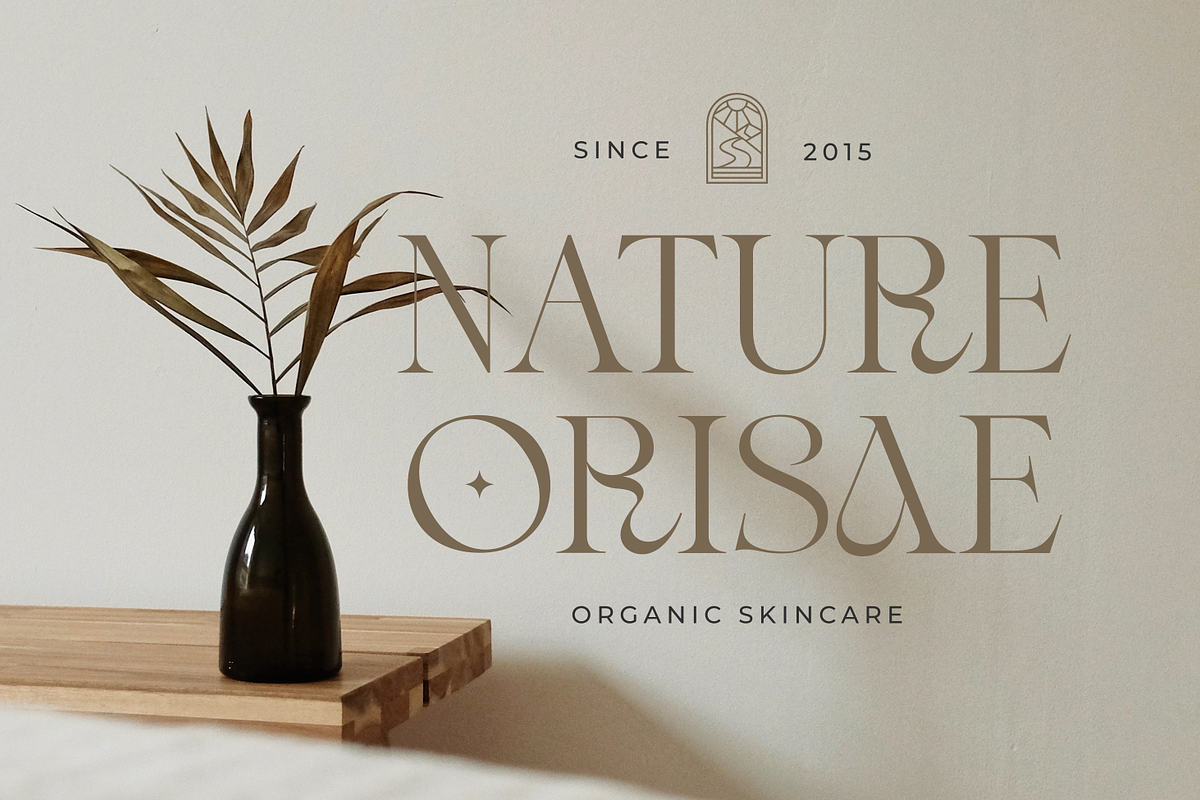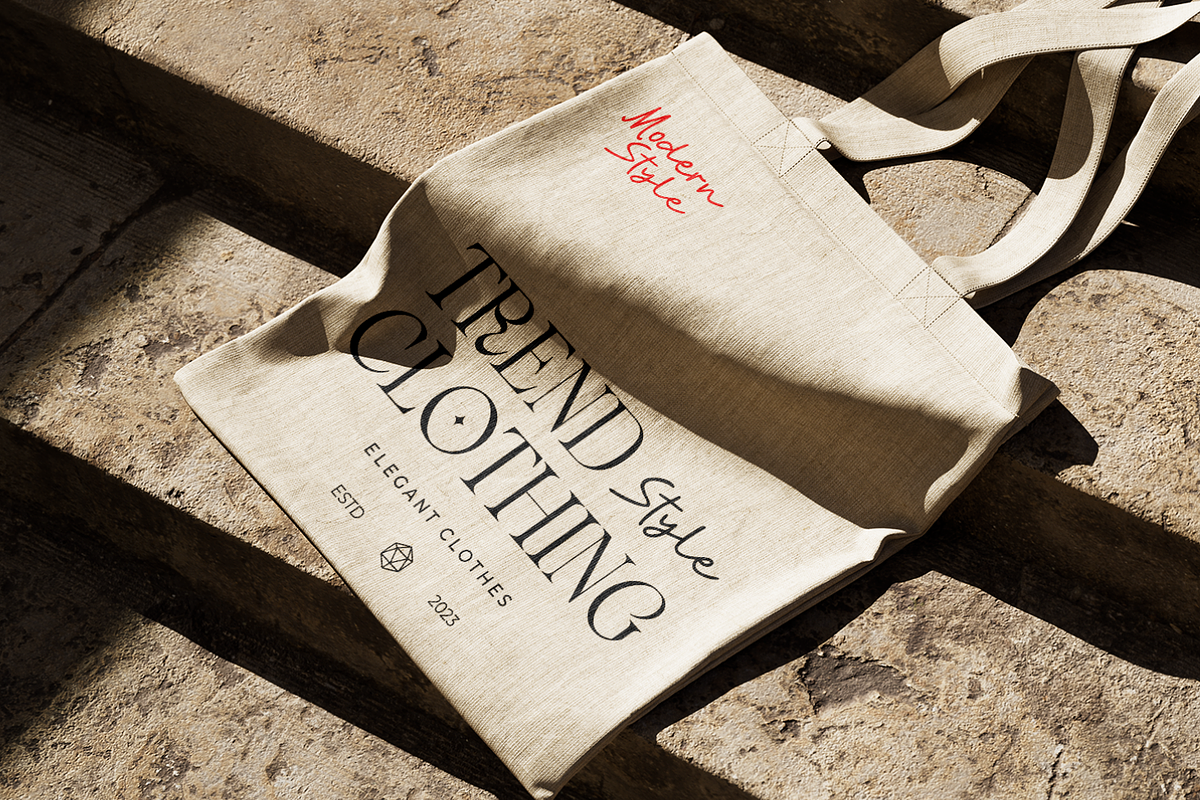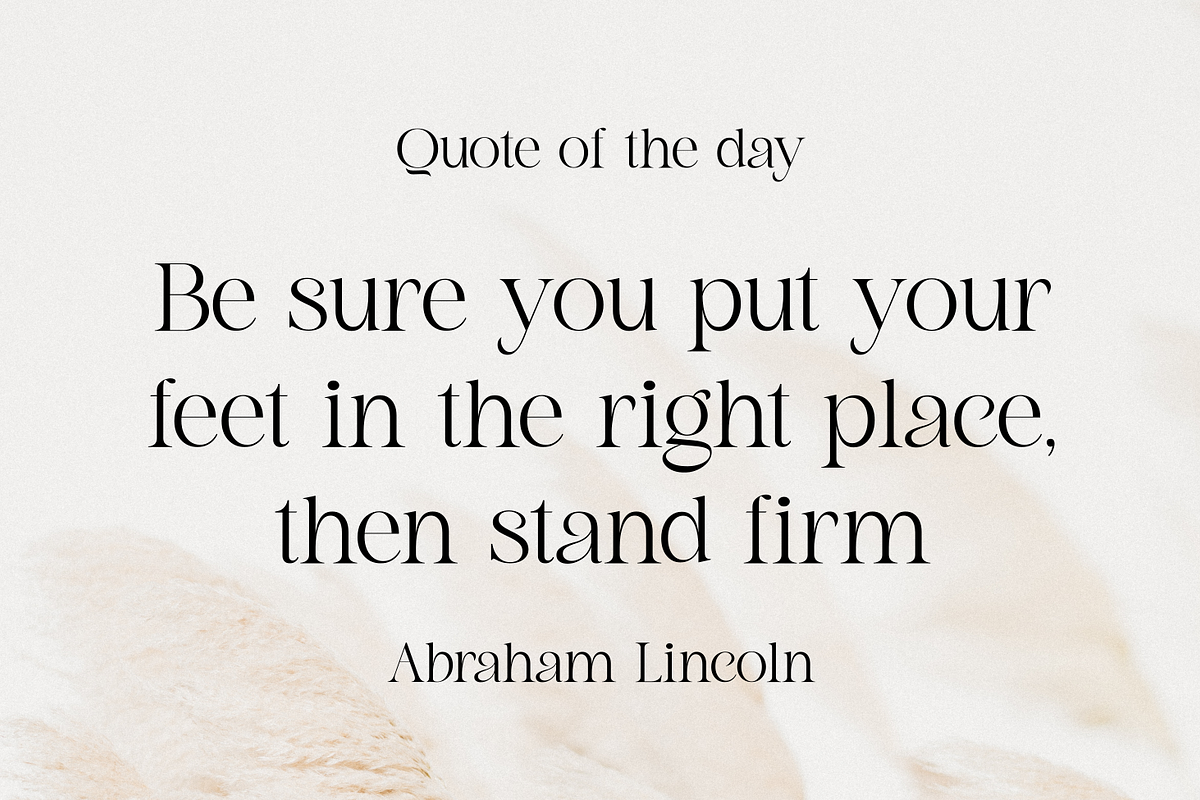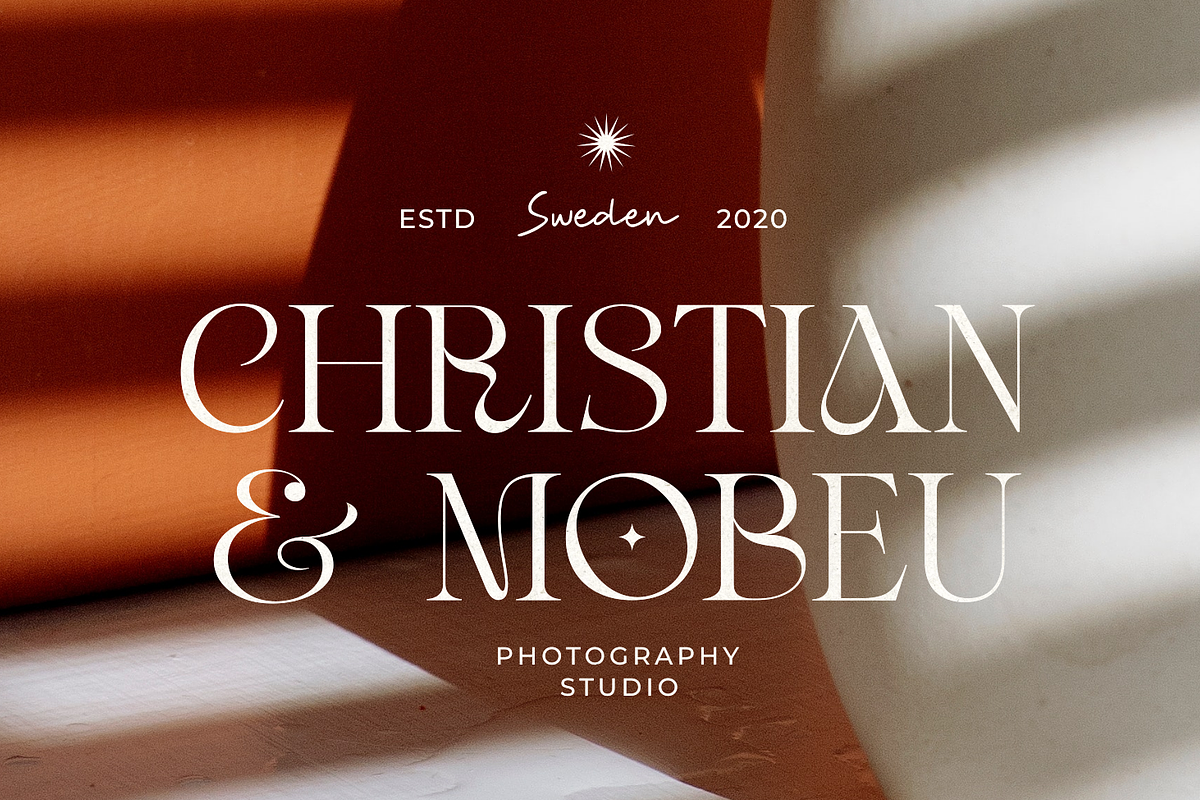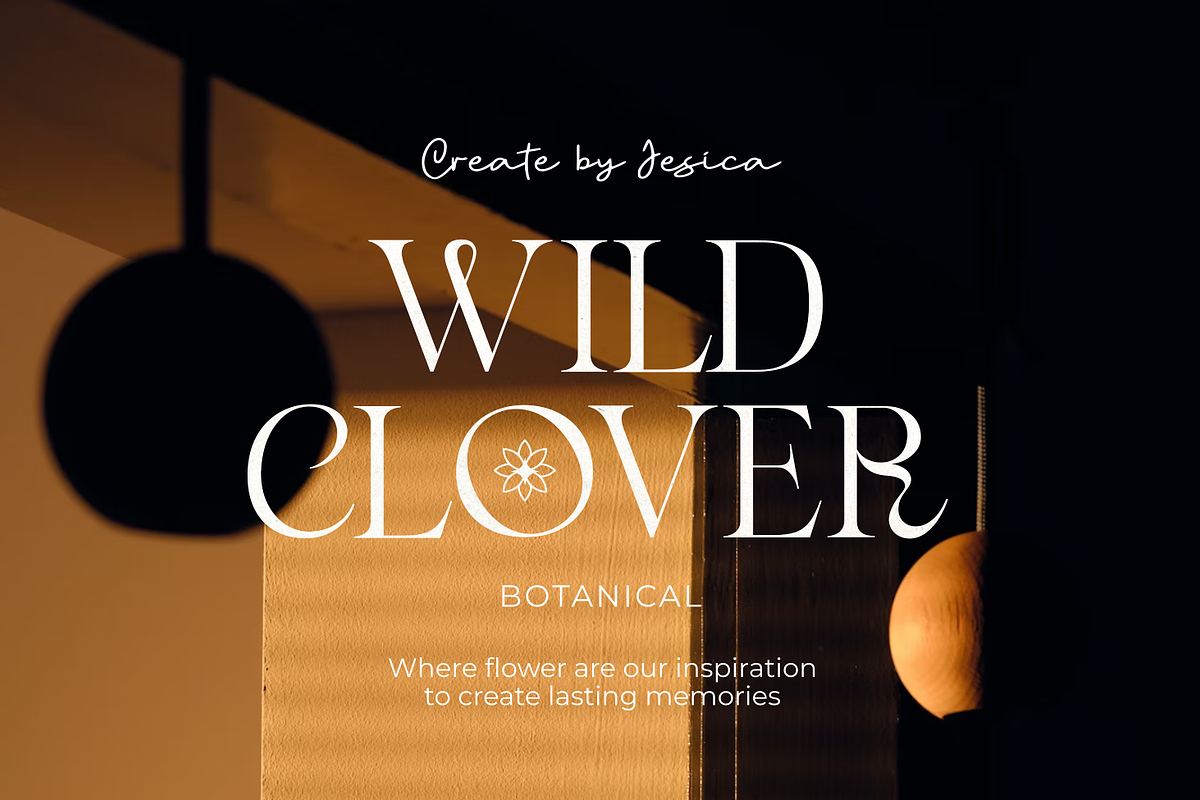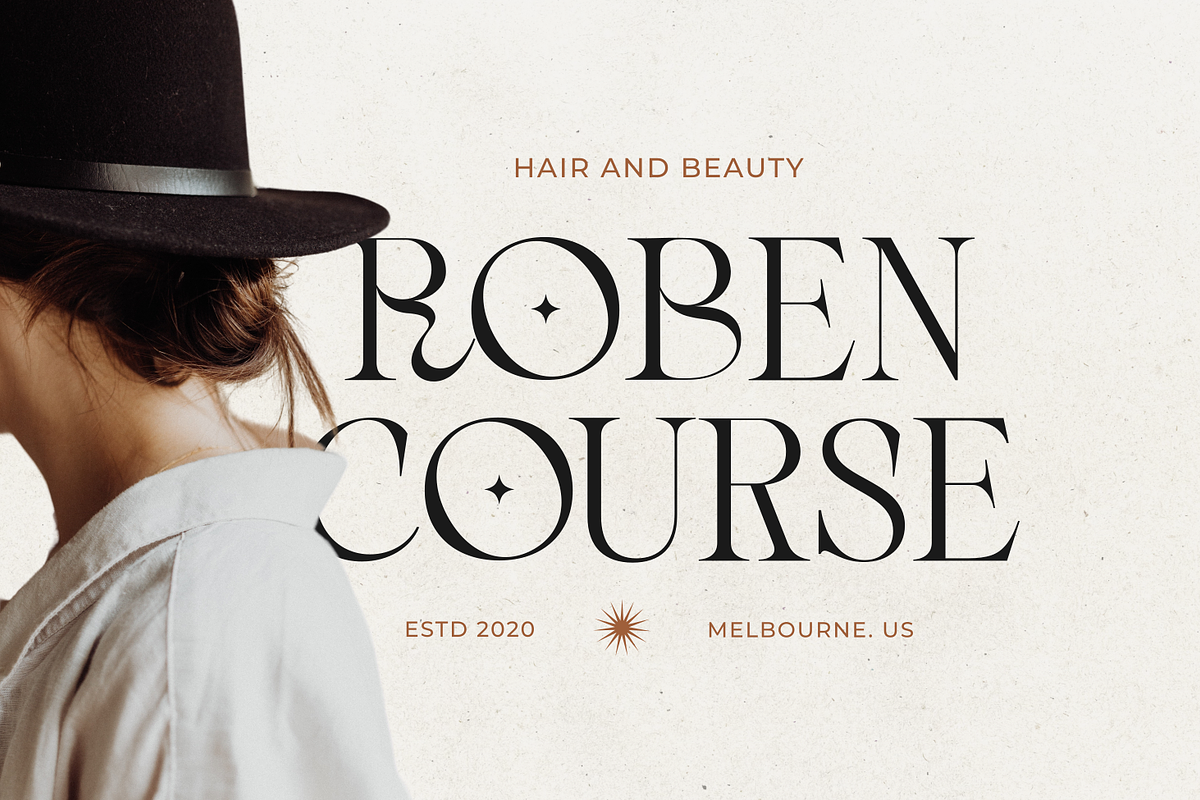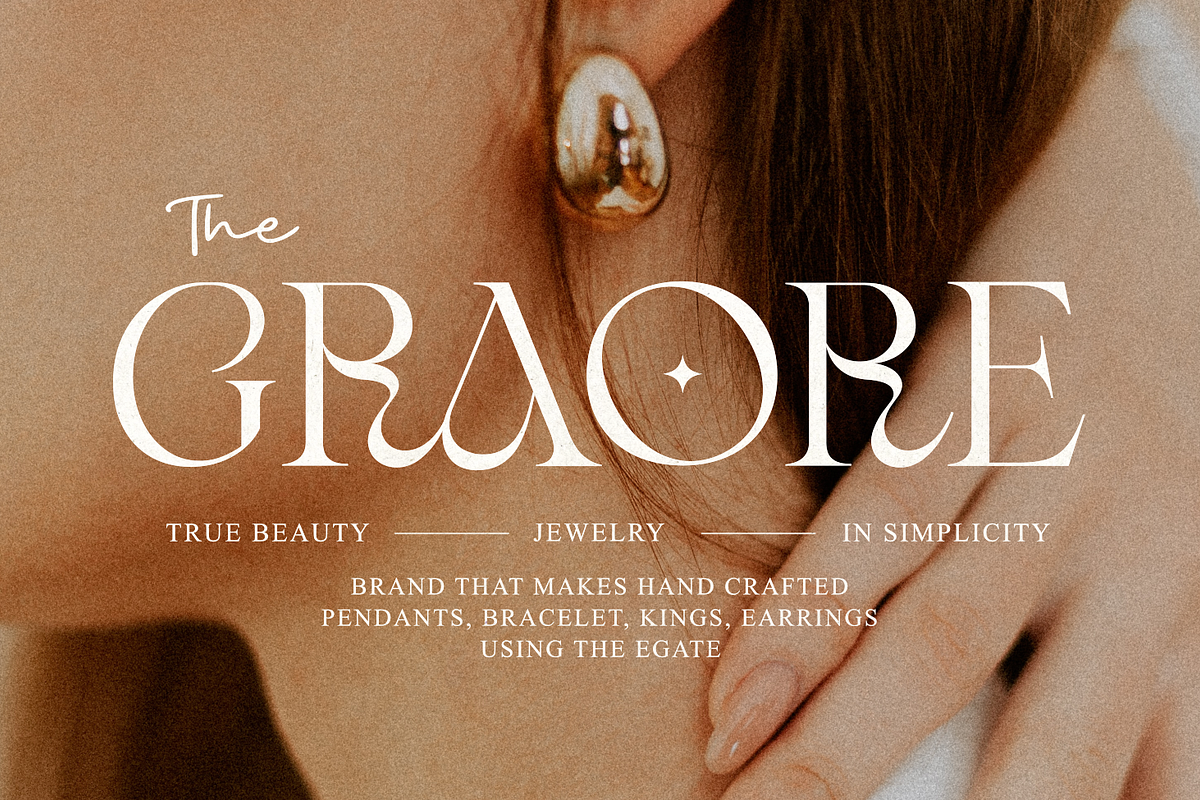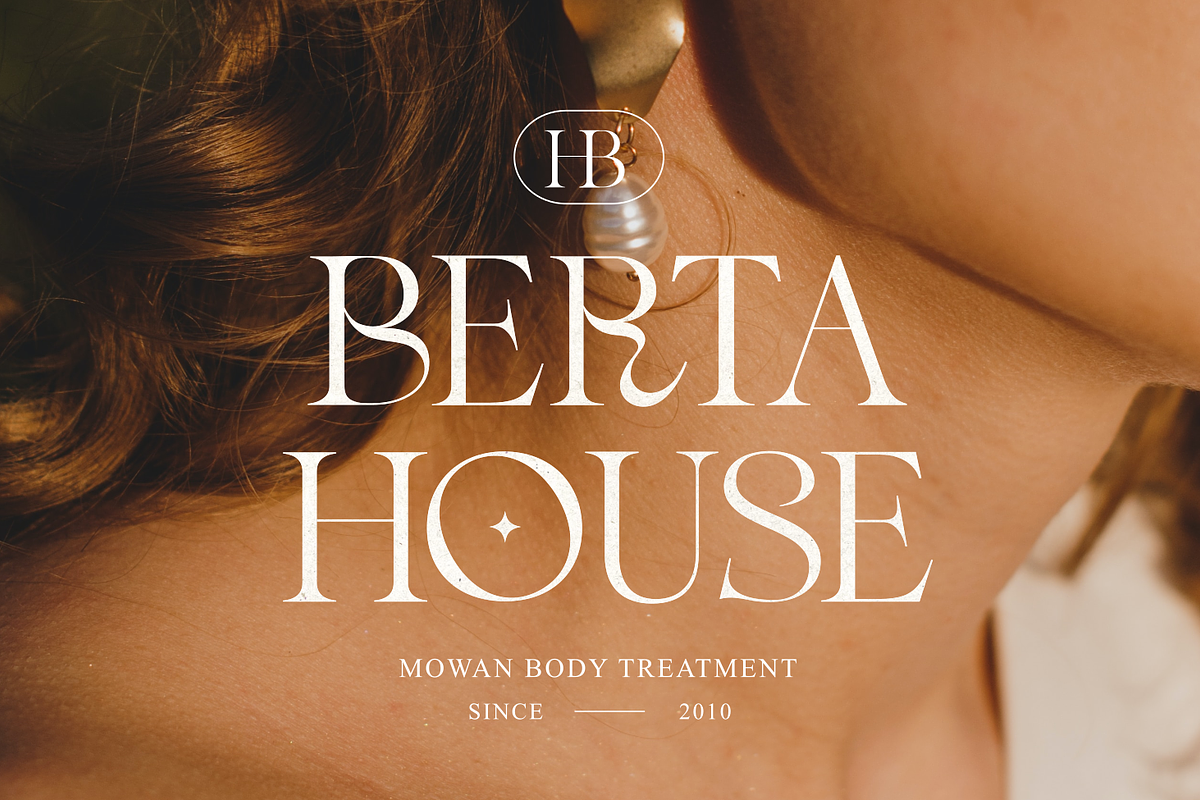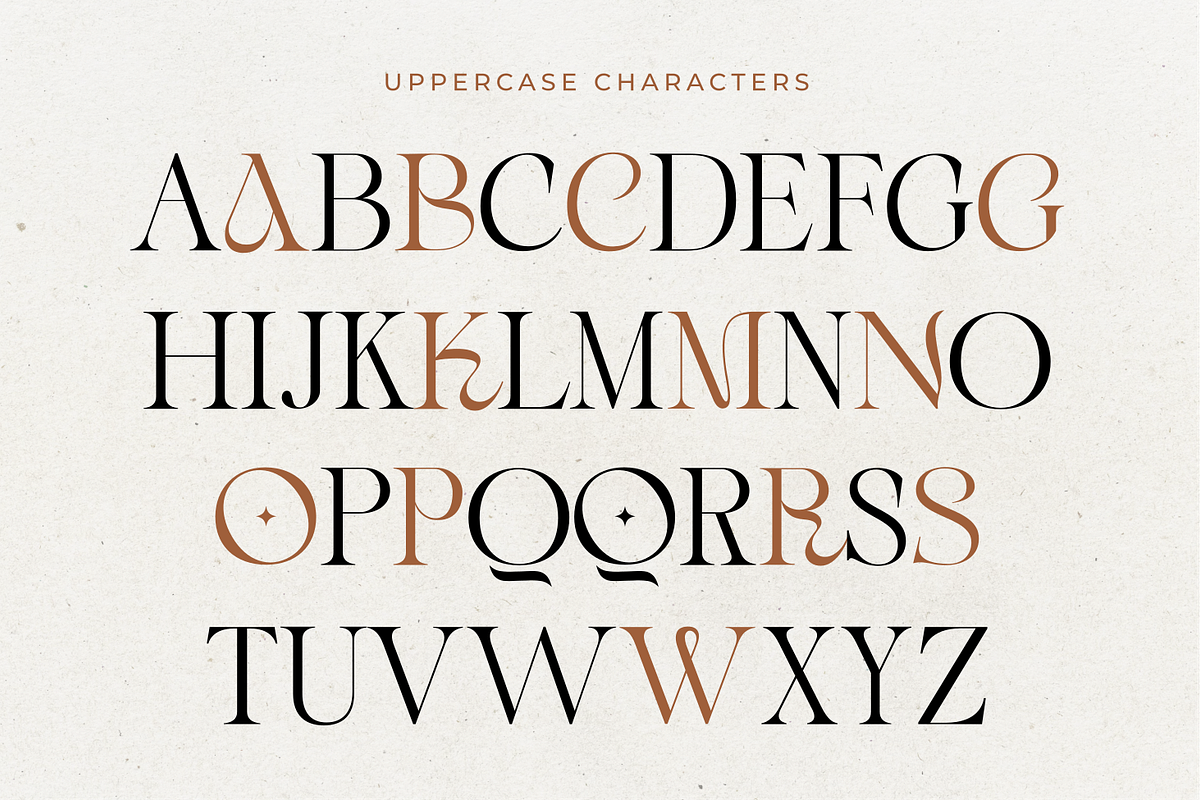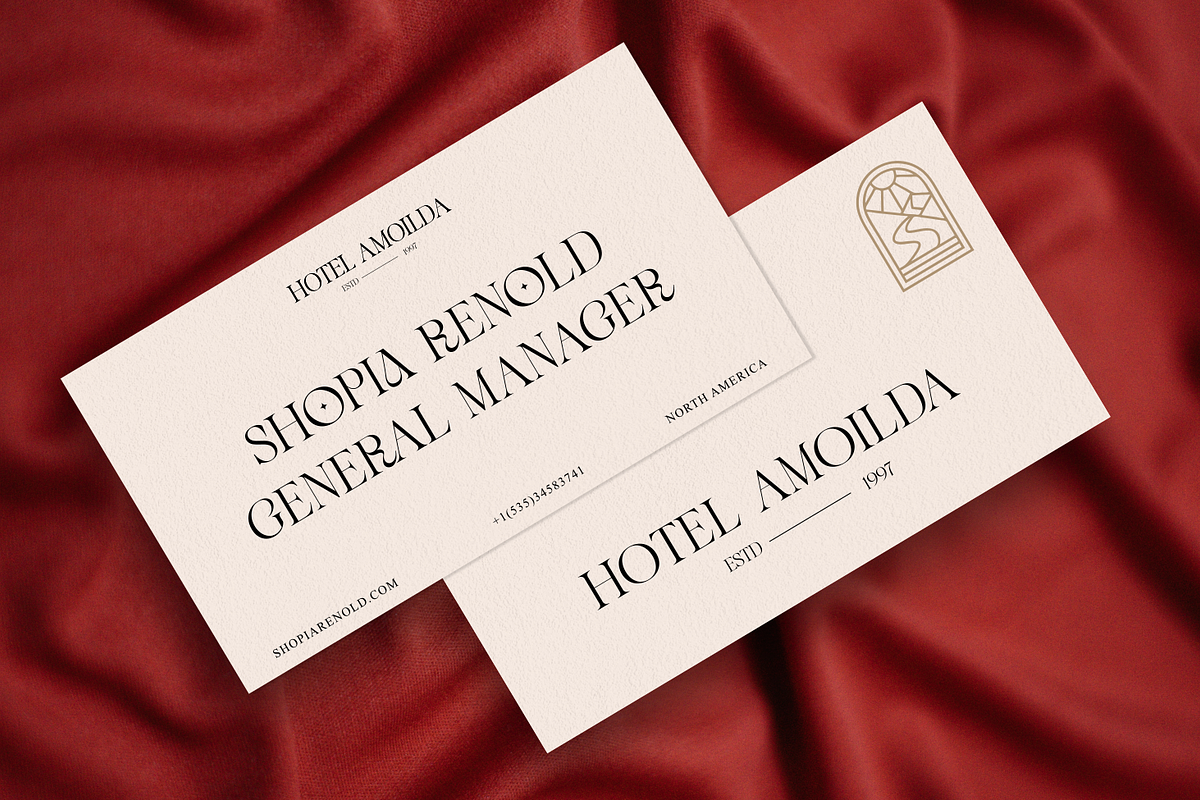
Kaobe - Luxury Serif Font
Introducing Kaobe Kaobe is a luxury display font with serif style. It's modern and classic font with a unique and deference look . Perfect if you need a dose of fun in your project. Perfect for editorial projects, Logo design, web font, clothing branding, product packaging, magazine headers, or simply as a stylish text overlay to any background image.